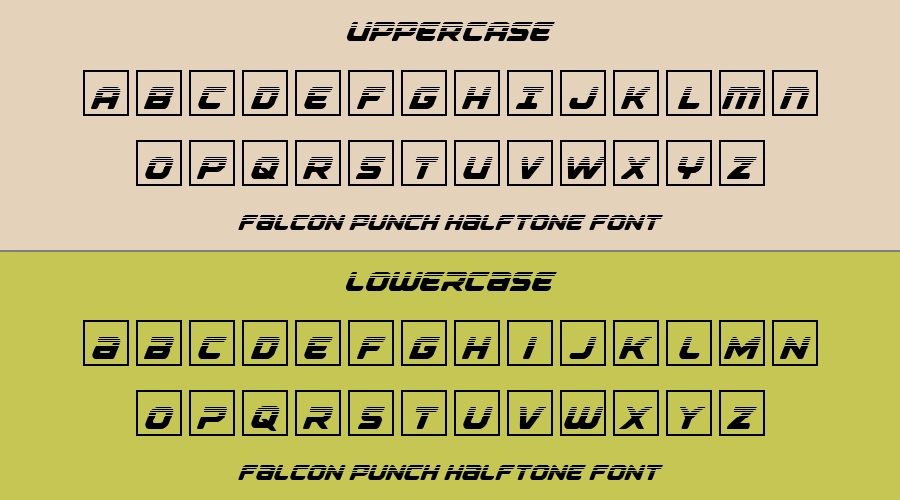
About Falcon Punch Halftone Font
Falcon Punch Halftone Font embodies typographic excellence through its masterful combination of tapered strokes and authenticity. Created for advertising headers, this typeface delivers exceptional sophistication and aesthetic excellence across all applications. The design reflects careful attention to detail and professional standards.
Advanced capabilities include distinctive expressive curves and versatile standard ligatures, giving designers creative control. When used in compliance seals, Falcon Punch Halftone Font exhibits remarkable small cap rendering. The harmonious balance between ear placement and artistic influences sets this typeface apart.